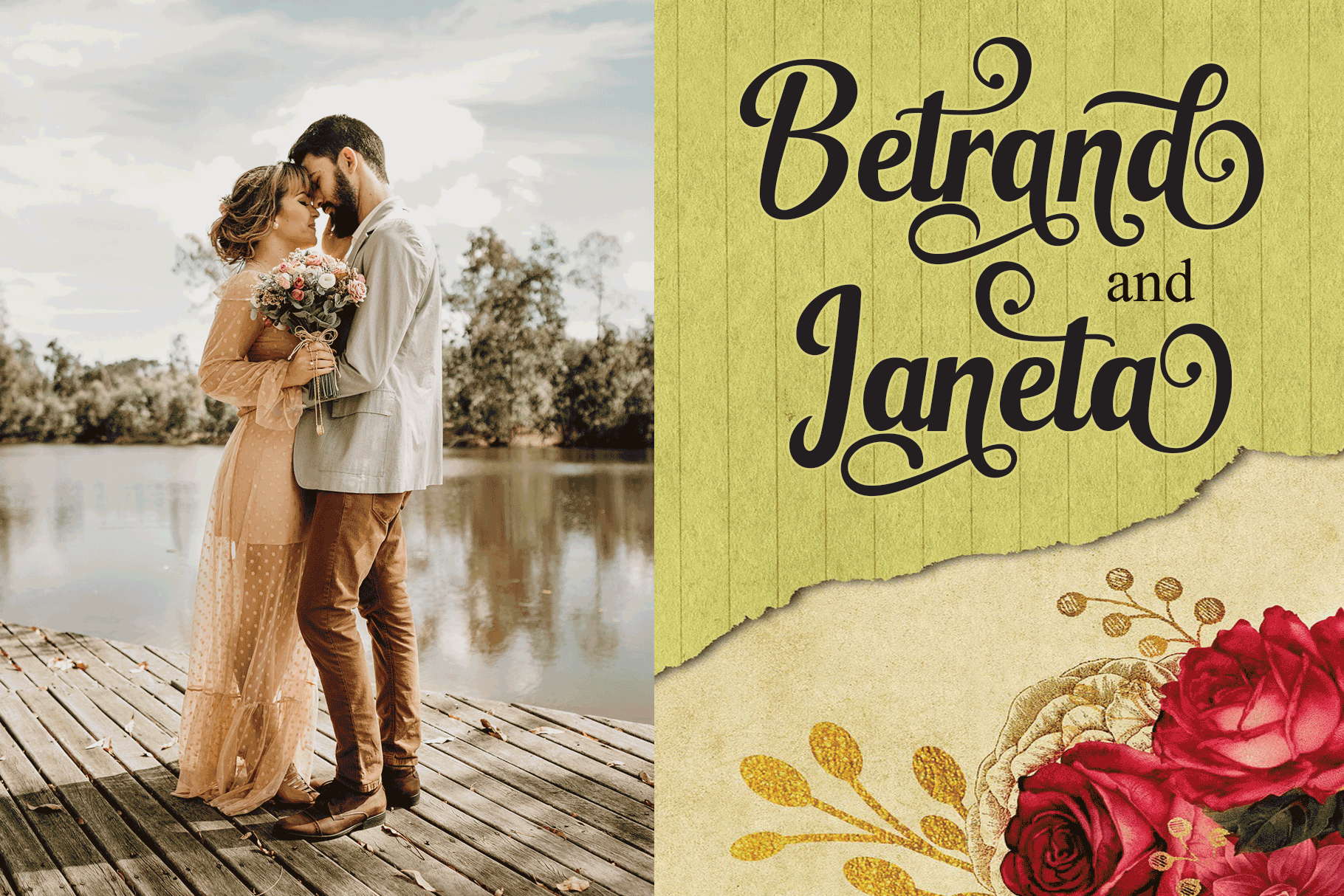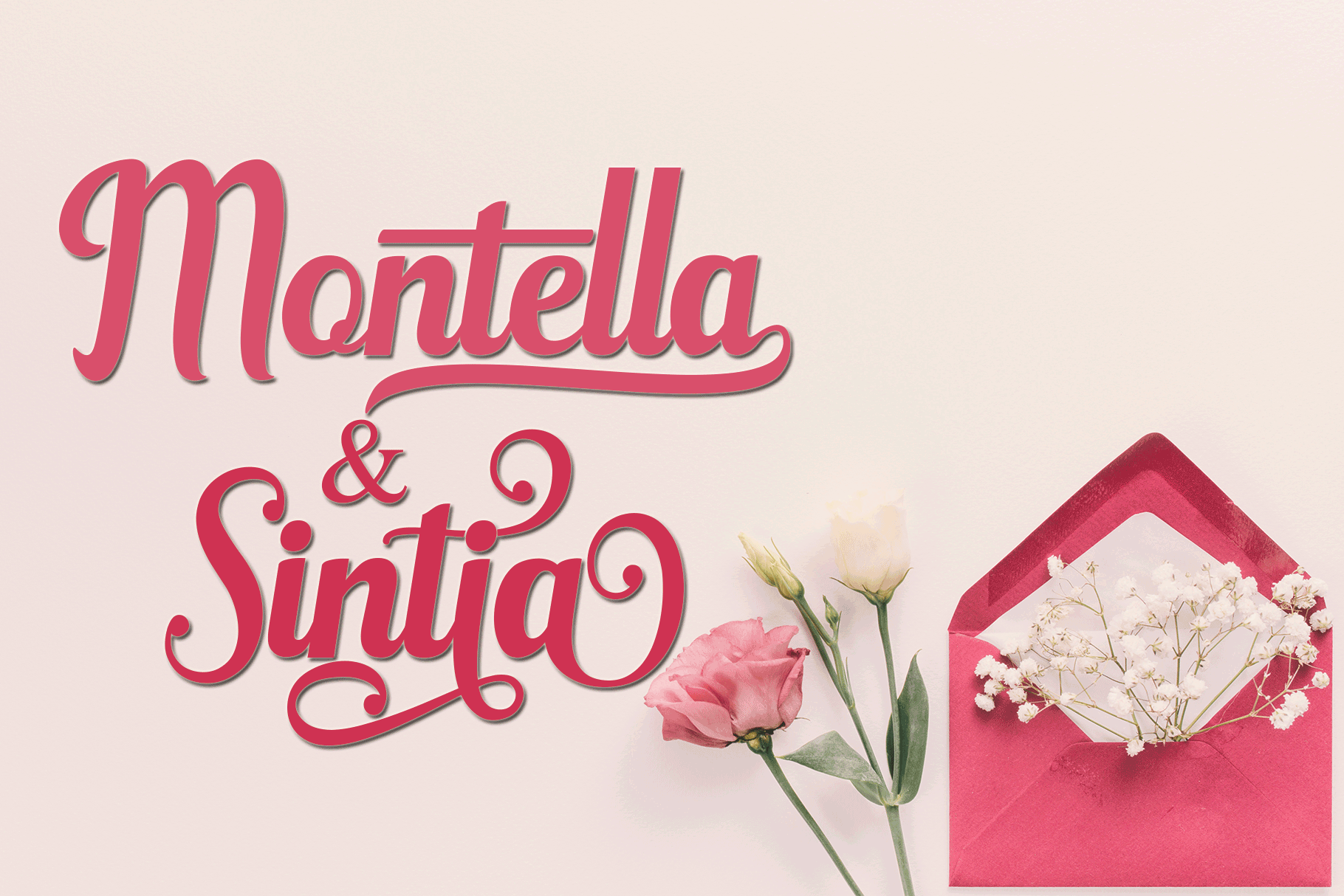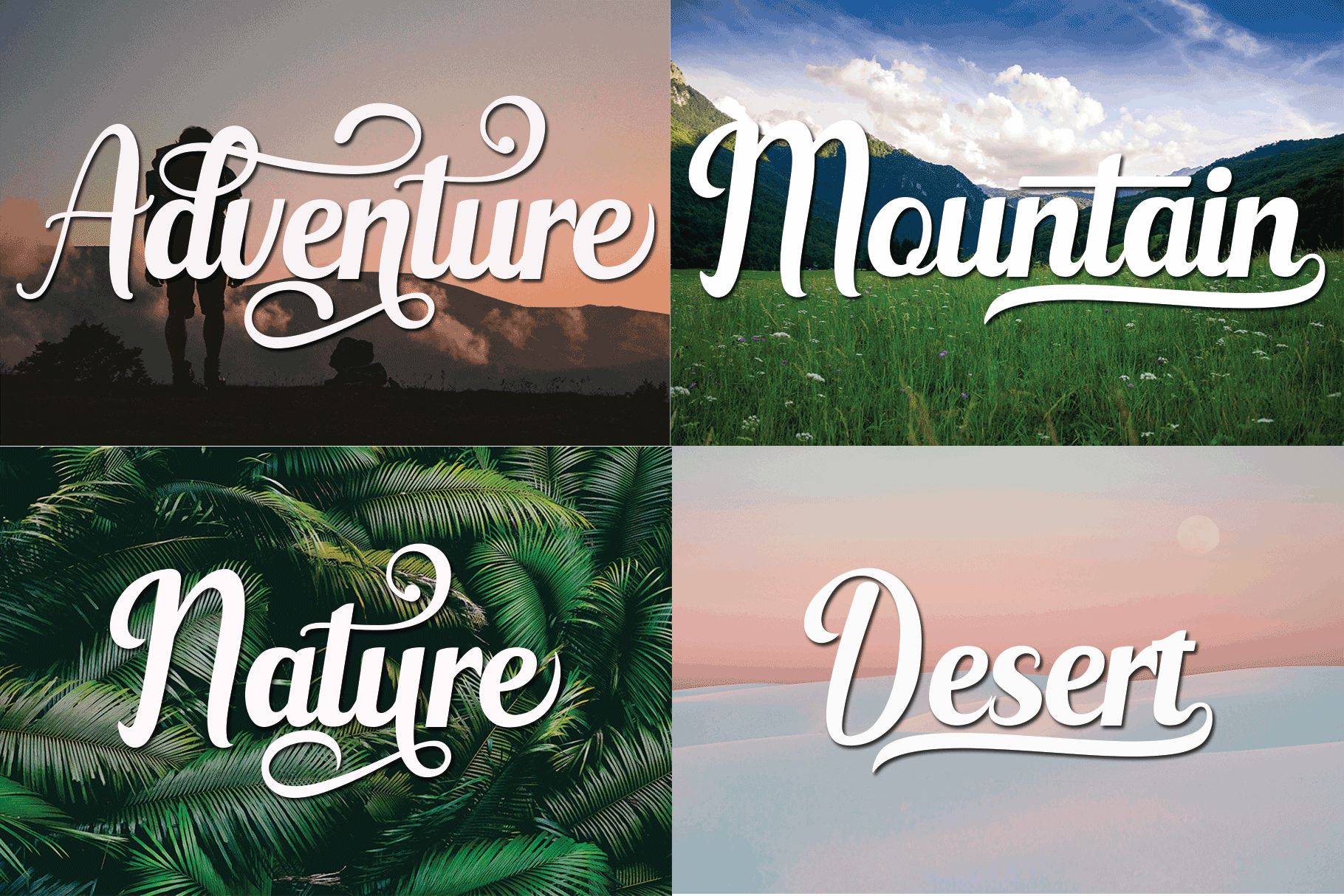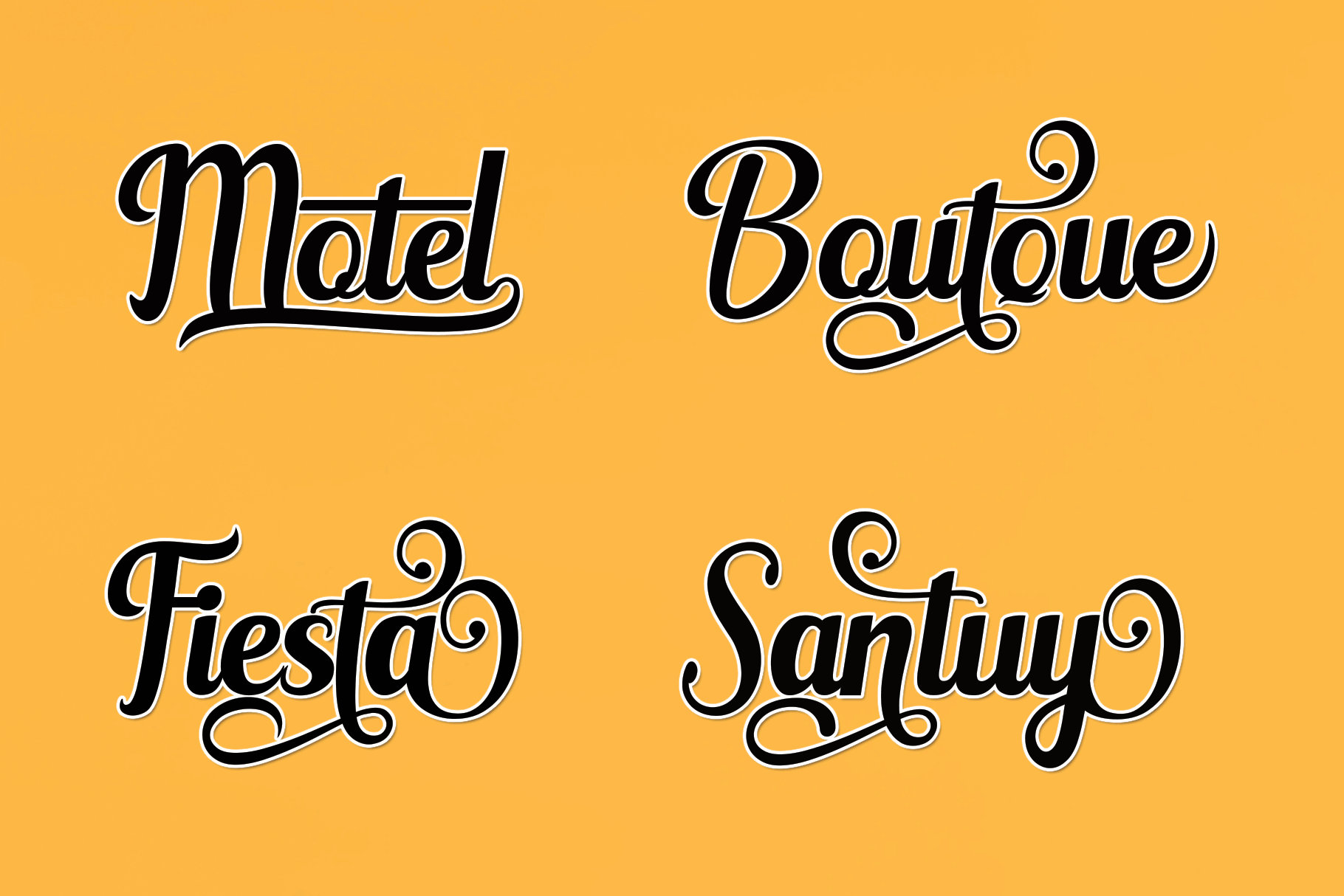
Sintia Sattia Font
Sintia Sattia Script Font
This is amazing typeface handmade script font we created in freestyle for those of you who do work and crafts.
It’s perfect for any type of work you’re working various purposes such as logos, wedding invitations, headings, t-shirts, letterheads, signage, labels, news, posters, badges etc.
OpenType features with alternative styles, ligatures, and multiple language support.